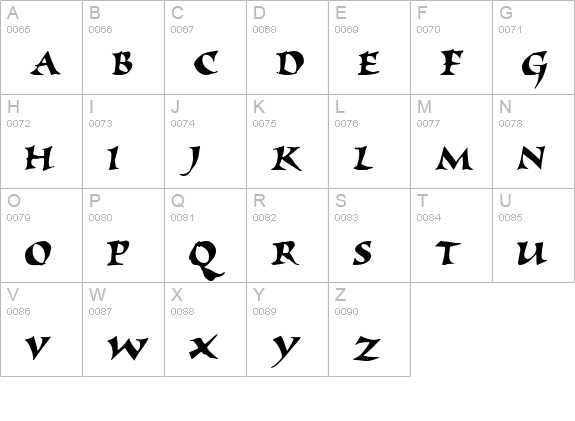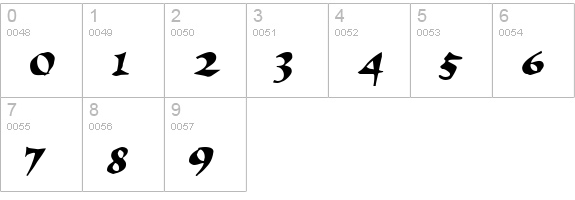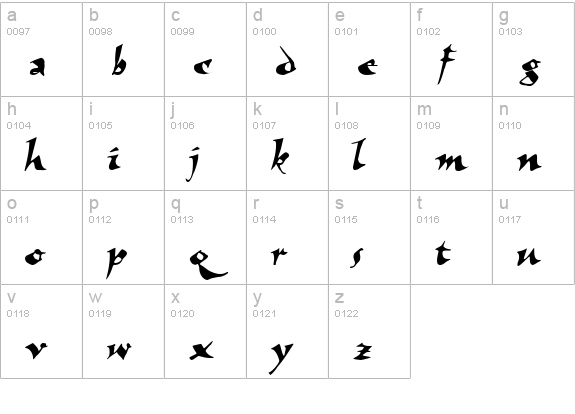
Elbjorg Script Font Details
Elbjorg Script is a stunning and elegant font that exudes sophistication and charm. With its flowing lines and graceful curves, this script font is perfect for adding a touch of class to any project. Whether you're designing wedding invitations, branding materials, or social media graphics, Elbjorg Script will elevate your designs to the next level. What's even better is that Elbjorg Script is available for free download at FontsMarket.com. This means you can easily access this beautiful font without breaking the bank. So go ahead and add a touch of luxury to your designs with Elbjorg Script today!